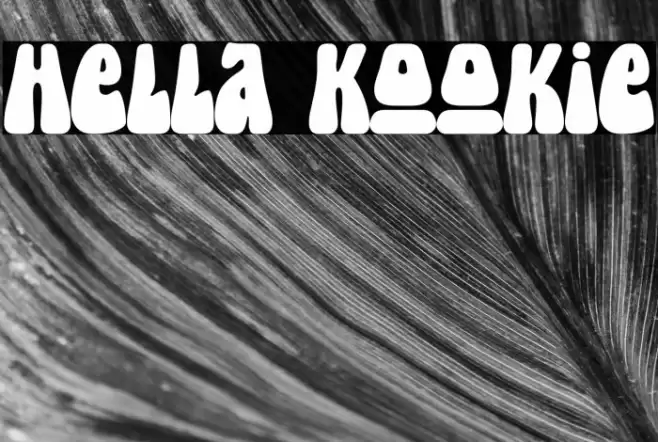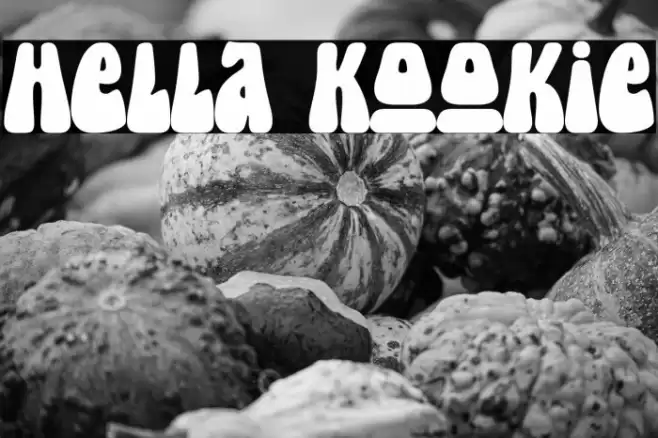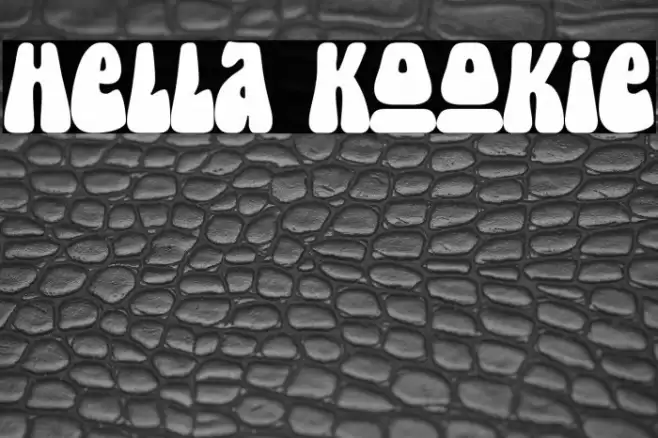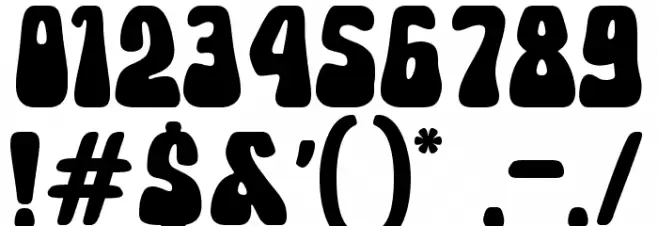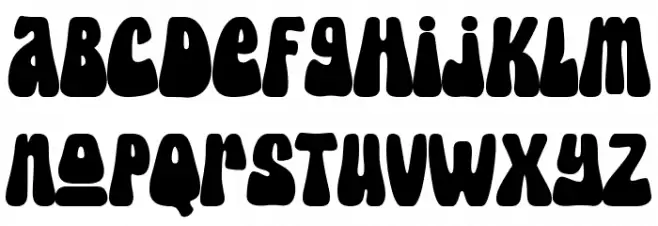
Hella Kookie Font
Hella Kookie Description
This playful and bold typeface features thick, rounded characters that exude a sense of fun and whimsy. The exaggerated curves and soft edges give it a bubbly appearance, making it ideal for designs that aim to capture attention and convey a lighthearted tone. The font's unique style is consistent across uppercase, lowercase, numbers, and special characters, maintaining a cohesive look. Its distinctiveness lies in the way each letter seems to have a personality of its own, contributing to an overall lively and engaging aesthetic.
A bold, playful typeface with rounded, bubbly characters from Uncategorized fonts.
- Proposed Projects: Ideal for children's book covers, playful branding, party invitations, and eye-catching posters.
- Overall Style: Playful, Fun, Whimsical